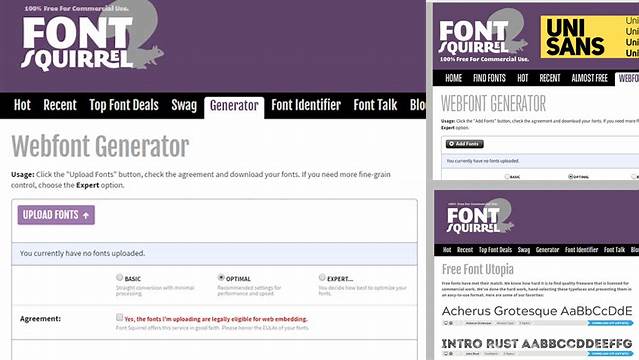
Font Squirrel Webfont: Your Ultimate Guide
Hey guys! Ever found yourself staring at a website, admiring the fonts, and thinking, "I wish I could use that"? Well, you're in luck! This is your go-to guide for everything about Font Squirrel webfonts – a treasure trove of free, high-quality fonts that can seriously elevate your website's design. We're going to dive deep, exploring how Font Squirrel works, why it's a designer's best friend, and how you can easily integrate these amazing fonts into your projects. Get ready to level up your web design game!
H2: What Exactly is Font Squirrel Webfont? A Deep Dive
So, what exactly is a Font Squirrel webfont? Basically, it's a font designed specifically for use on the web. Traditional fonts, like the ones you install on your computer, aren't always optimized for online display. This is where Font Squirrel steps in. They've curated a fantastic collection of fonts, many of which are free, and have provided them in formats that work seamlessly with websites. When you visit www.fontsquirrel.com, you're entering a world of typography possibilities. The site acts as a digital library of fonts, meticulously categorized and tagged, making it super easy to find the perfect typeface for any project. Font Squirrel doesn't just offer fonts; they offer webfonts. This means that the fonts are provided in the correct file formats (.woff, .woff2, .ttf, etc.) and are ready to be embedded in your website's code. This ensures consistent rendering across different browsers and devices, a crucial aspect of modern web design. The site has a fantastic search function that allows you to filter fonts based on various criteria, such as style, license, and even the kind of project you're working on. Whether you're a seasoned web developer, a passionate blogger, or just starting to dabble in web design, Font Squirrel is an invaluable resource. It’s like having a personal font stylist at your fingertips, ready to help you choose the perfect typography to express your brand's personality and engage your audience. You can find everything from classic serifs to modern sans-serifs, decorative scripts, and even unique display fonts. And the best part? Many of these fonts are available under licenses that permit commercial use, which means you can use them for client projects without any legal headaches. This makes Font Squirrel a game-changer for small businesses and freelancers looking to create professional-looking websites without breaking the bank.
H2: Why Choose Font Squirrel for Your Webfont Needs?
Why bother with Font Squirrel when there are tons of other font resources out there? Well, the answer is simple: Font Squirrel offers a combination of quality, affordability, and ease of use that's hard to beat. The fonts are generally of extremely high quality, professionally designed, and carefully selected. This means you can trust that the typography on your website will look sharp and polished, enhancing the overall user experience. The site has an amazing selection process. Font Squirrel doesn’t just accept any font; they carefully curate their collection. This guarantees that you're getting access to the best webfonts out there. Their team reviews fonts, ensuring they meet certain quality standards before adding them to the library. A core aspect of Font Squirrel's appeal is its commitment to providing free fonts. This makes it accessible to everyone, regardless of budget. It's a fantastic resource for individuals, small businesses, and anyone who wants to create a professional website without spending a fortune on font licenses. But free doesn't mean low-quality! Many of the free fonts available on Font Squirrel are of exceptional quality and can compete with premium fonts. Beyond the free fonts, the site also offers a curated selection of fonts available for purchase at reasonable prices. This gives you even more options to choose from. Font Squirrel simplifies the process of integrating webfonts into your website. They provide the necessary files in web-friendly formats. They also offer helpful guides and tools to make the integration process as smooth as possible. Using webfonts from Font Squirrel ensures your text looks consistent across all browsers and devices. This is something you can't always guarantee with standard fonts. Because the fonts are designed specifically for the web, they’re optimized for clear and legible rendering at various sizes and resolutions. This guarantees a positive user experience for anyone visiting your site. Font Squirrel is also known for its user-friendly website and intuitive search and filtering options. This makes it easy to discover the perfect fonts for your projects.
H2: Font Squirrel's Free Fonts: The Ultimate Typography Playground
Let's be honest, who doesn't love free stuff? Font Squirrel's collection of free fonts is truly a typography playground, packed with an incredible variety of typefaces. From elegant serifs that give a touch of class to your designs to modern sans-serifs that project a clean and contemporary look, the options are seemingly endless. The availability of these fonts means that you can create stunning websites, compelling blogs, or captivating marketing materials without breaking the bank. It's an invaluable resource for startups, freelancers, and anyone who wants to make their designs stand out. But what makes these fonts really stand out? It's the sheer quality and diversity. Font Squirrel doesn't just throw any font into the mix. They have a rigorous selection process, ensuring that the fonts are well-designed, technically sound, and suitable for web use. They have a lot of font families. You can find a wide range of styles, weights, and character sets. They have tons of choices, which gives you the flexibility to find the perfect font for any project. Do you need a bold headline font? A readable body text font? Or perhaps a quirky display font? Font Squirrel has got you covered. A major advantage of Font Squirrel's free font collection is its licensing. Most of the fonts are available under licenses that permit commercial use. This means you can use them in client projects or for your business without any legal issues. That kind of flexibility is hard to beat, and it truly makes Font Squirrel an amazing resource for designers. The site is always being updated, with new fonts being added frequently. This gives you access to fresh and exciting typography options. You will always be able to find the newest design trends. Font Squirrel's website also makes it easy to browse and preview fonts. You can filter by style, license, and other criteria to find the perfect fit for your project. You can quickly see how a font looks with your content.